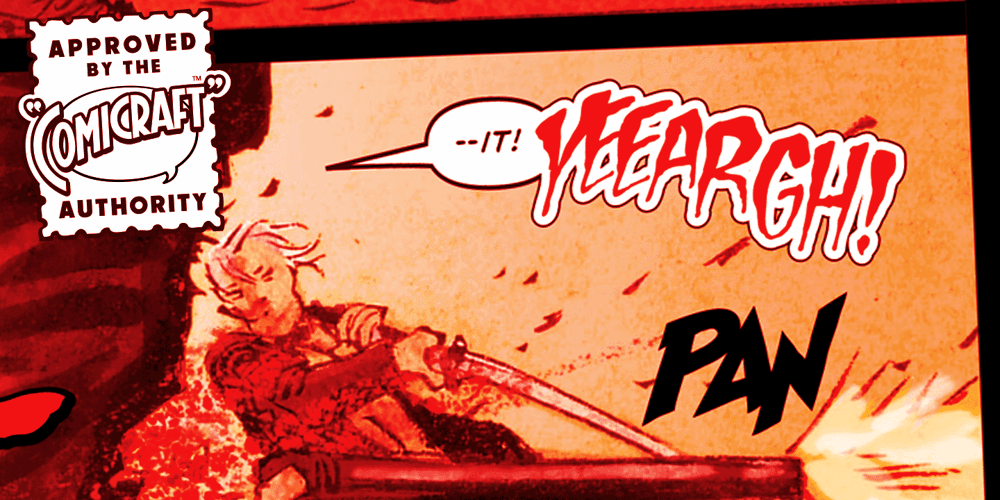
Carry On Screaming Font Family was designed by Richard Starkings and published by Comicraft. Carry On Screaming contains 4 styles and family package options. Originally written out in his own blood by Shrill Richard Starkings, this font is NOT FOR THE NERVOUS.